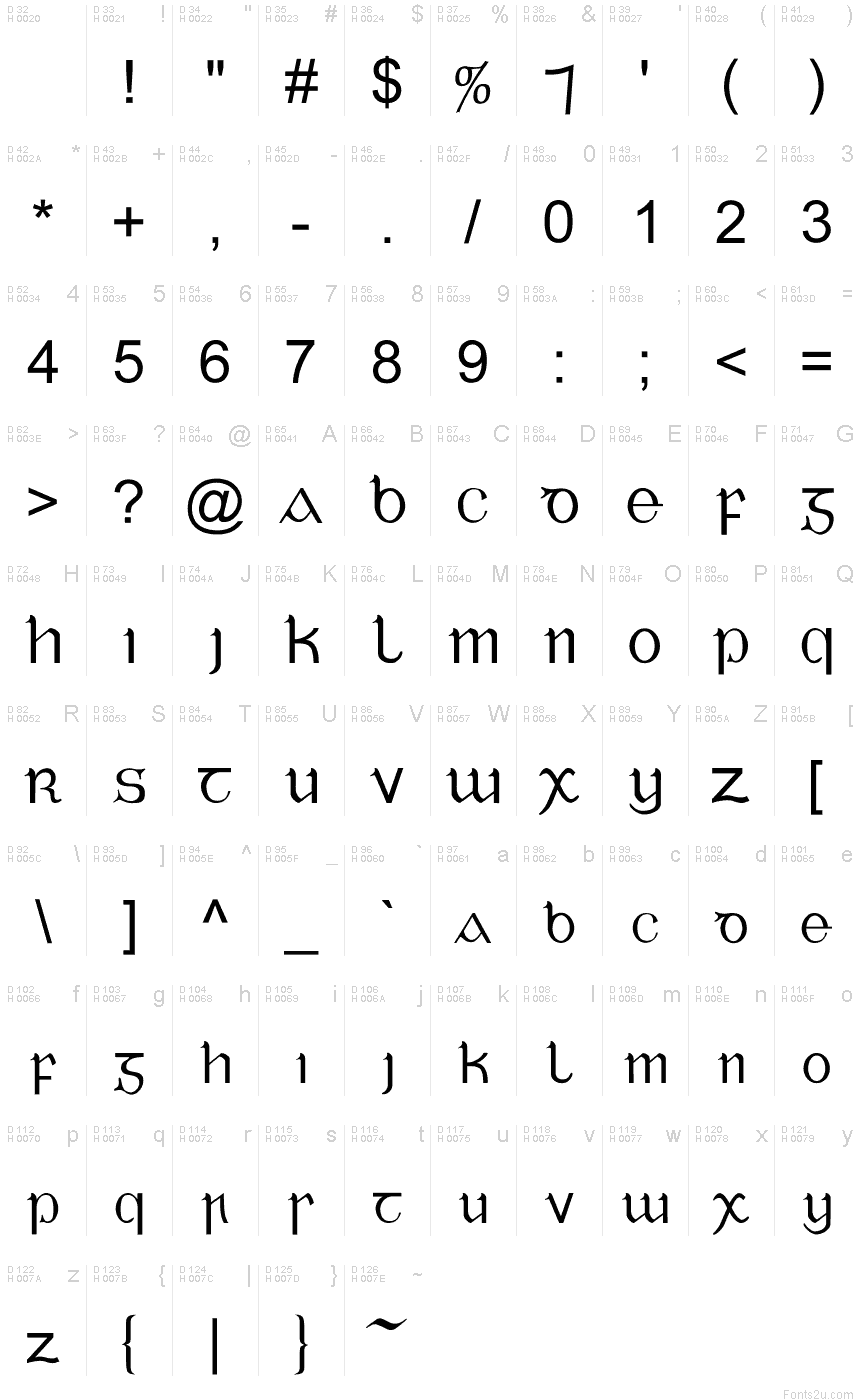
Cló Gaelach (Twomey)
Cló Gaelach (Twomey) font by Colum Twomey is a free Celtic gothic typeface that revives the texture and rhythm of traditional Irish letterforms. Its inky curves, hooked strokes, and narrow rhythm feel like they’ve stepped straight off an old manuscript, yet the shapes are clean enough to read at a glance. The result is a script that feels both historic and sharp, carrying a distinctly Gaelic voice without slipping into pastiche.
Using Cló Gaelach (Twomey), you can give real character to Irish cultural posters, pub and bar signage, folklore book covers, album art, festival branding, and game titles with Celtic themes. This free font shines when set large, letting the sweeping curves and angular joins breathe. Pair it with a simple sans serif for captions or body text so the ornate texture stays legible and the overall layout feels balanced.